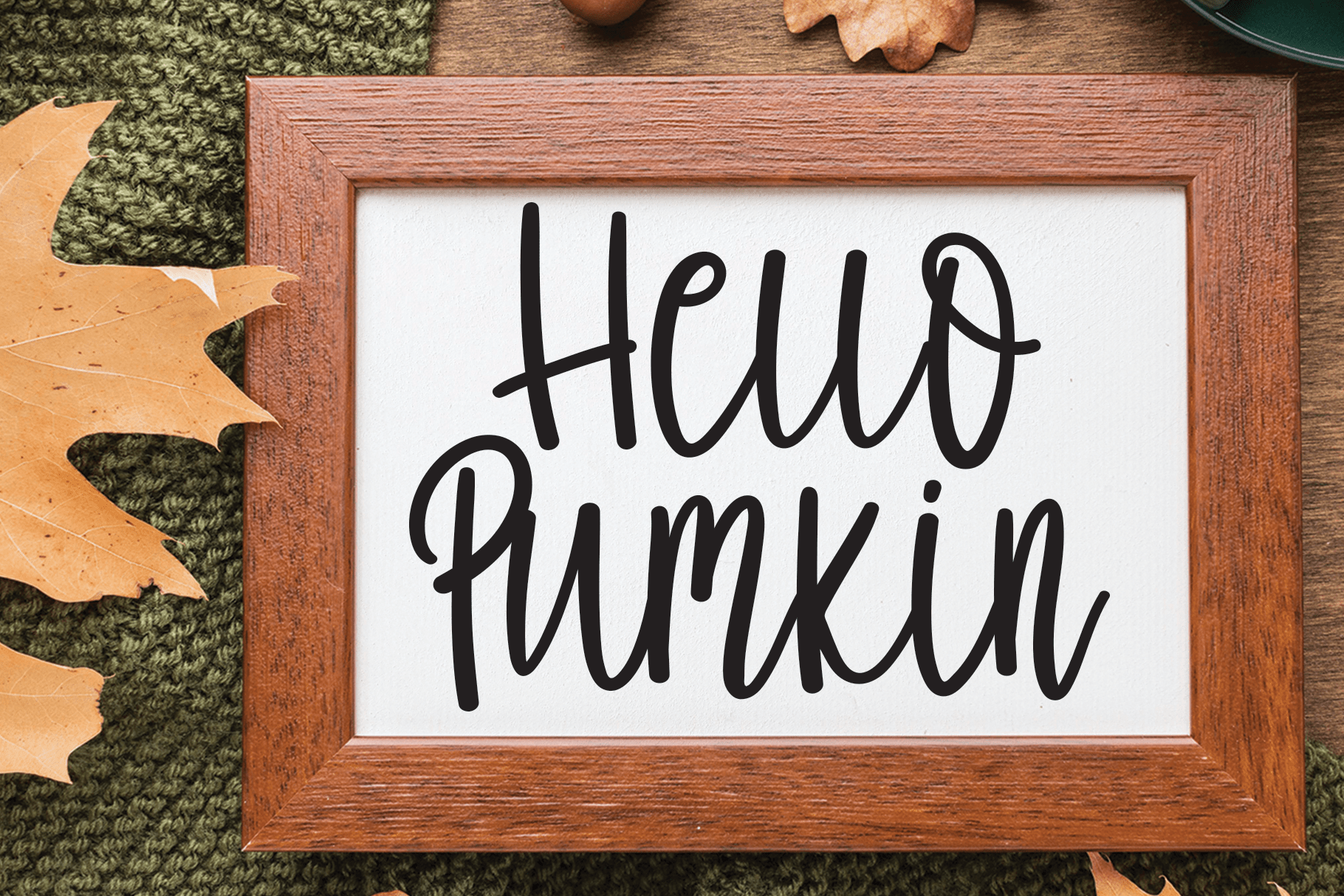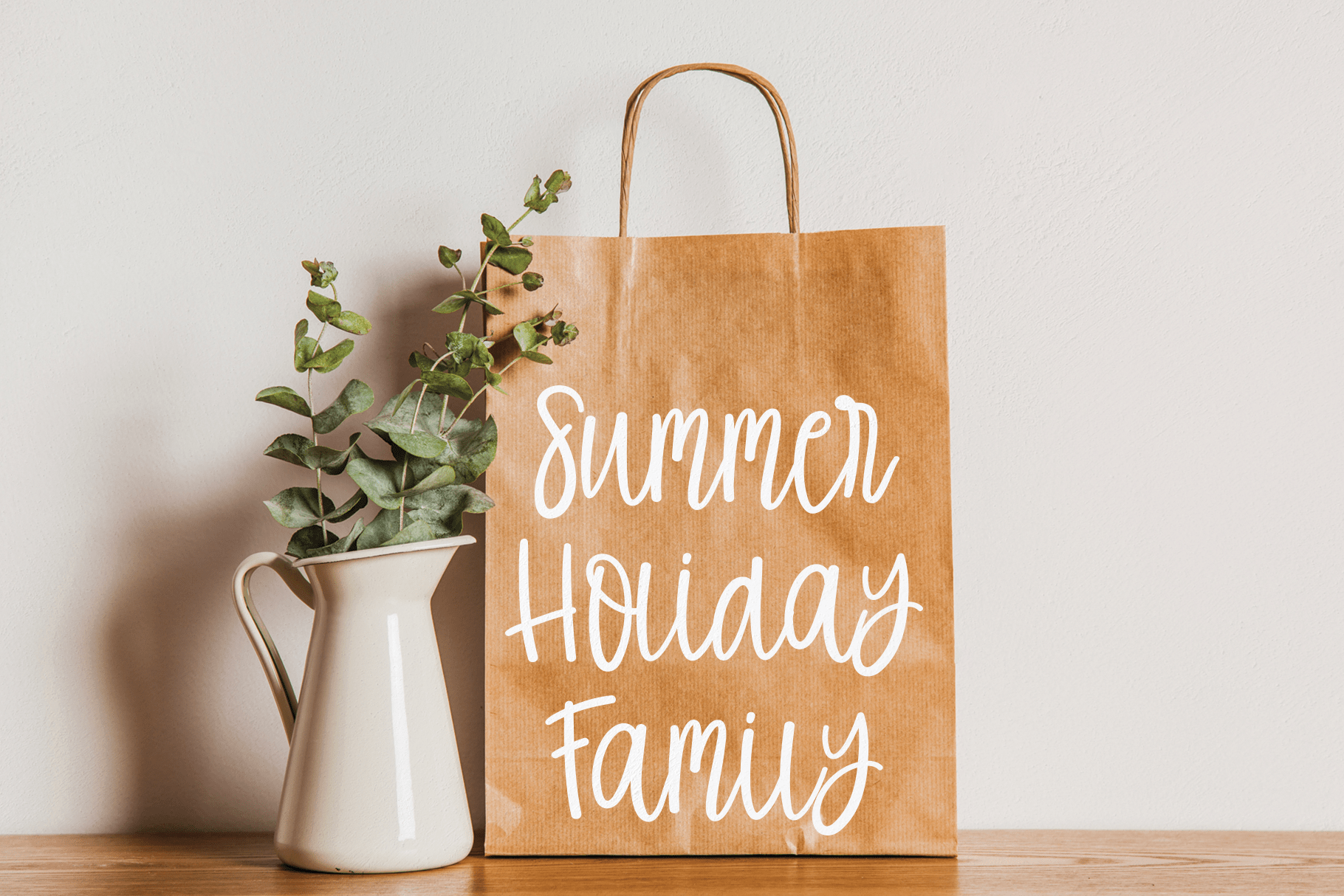
Farmahouse Homework Handwritten Font
This is a playful and whimsical handwritten font. Cursive and stylish, this typeface will elevate the look of each of your creations!